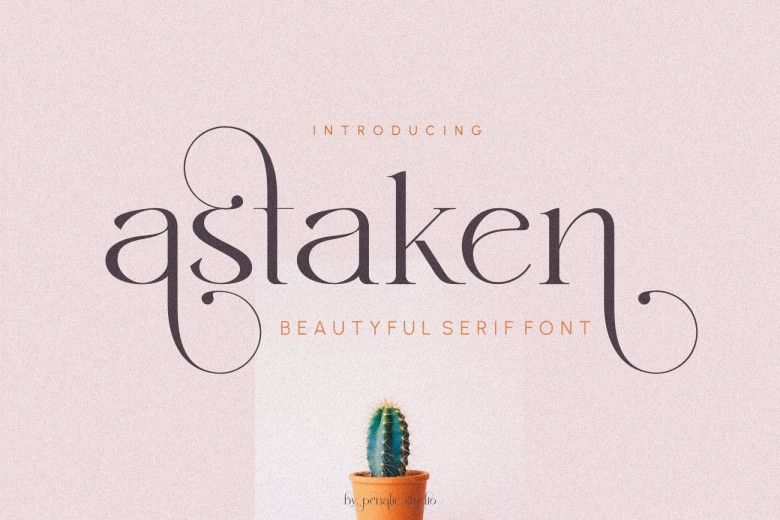
Astaken Font
Astaken offers an elegant serif font perfect for creating stunning wedding invitations, stationery art pieces, striking posts on social media and more! Take advantage of Astaken today to create beautiful invitations!
Astaken Serif Font